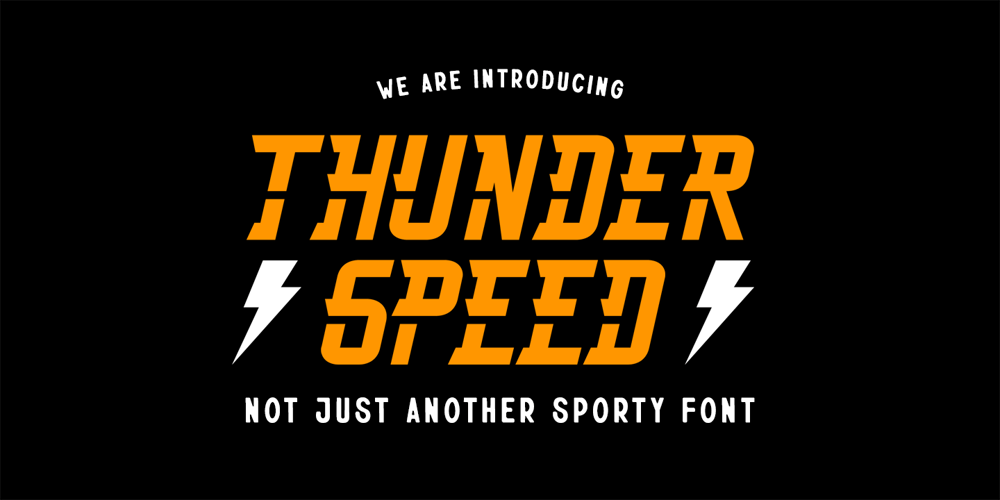
Thunderspeed
Thunderspeed font
Thunderspeed Font Family was designed by Doli Harahap and published by Tigade Std. Thunderspeed contains 1 styles and family package options. Thunderspeed is a futuristic and sporty look font. It is sharp yet easy on eyes of readability. It is perfect for your branding and logo, mainly in design theme related to sports, futuristic, space, etc.Thunderspeed features complete set of upper case and lower case with standard International characters. Of course come with the numbers and punctuations.The font come in format: OTF TTF WOFF/WOFF2 That’s a wrap! I do really hope you like this font, and please don’t hesitate to contact me if you have any questions. Also, drop by to our instagram!Tigadestd | Doli Harahap